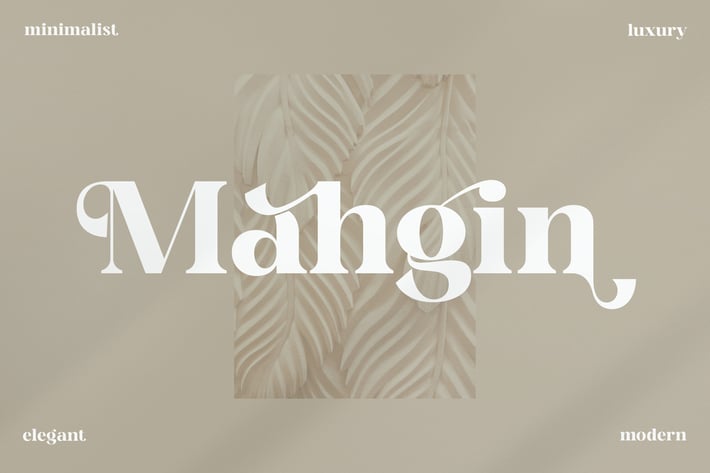
Mahgin Display Font
Mahgin Display Font exudes elegance and modern sophistication, making it a versatile choice for designers seeking a stylish serif typeface. With its bold shapes, clean lines, and refined curves, Mahgin is perfect for projects that require a touch of luxury and professionalism. Whether for print or digital, this font brings timeless beauty to your creative work.
+ Stylish serif display font with a luxury touch
+ Clean, bold shapes for strong visual impact
+ Modern minimalist design
Elevate your designs with Mahgin – a refined and modern display font that blends luxury, minimalism, and elegance in every letter.